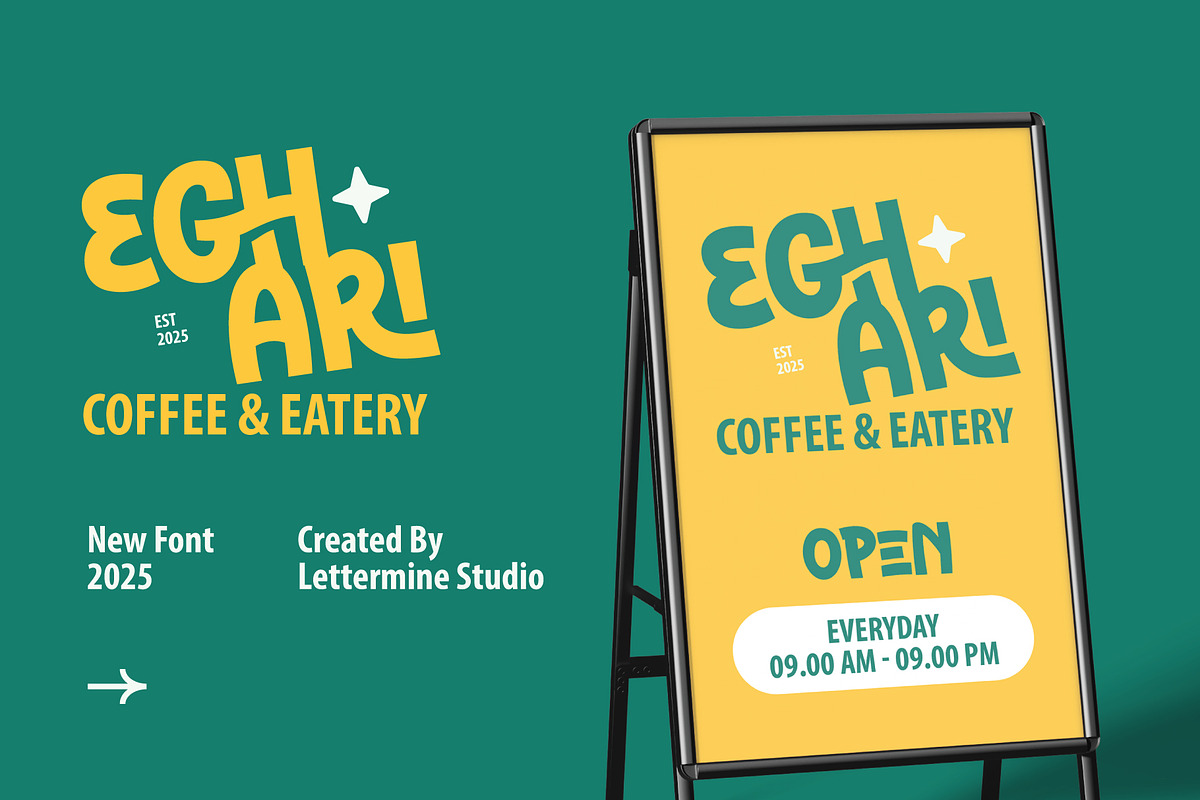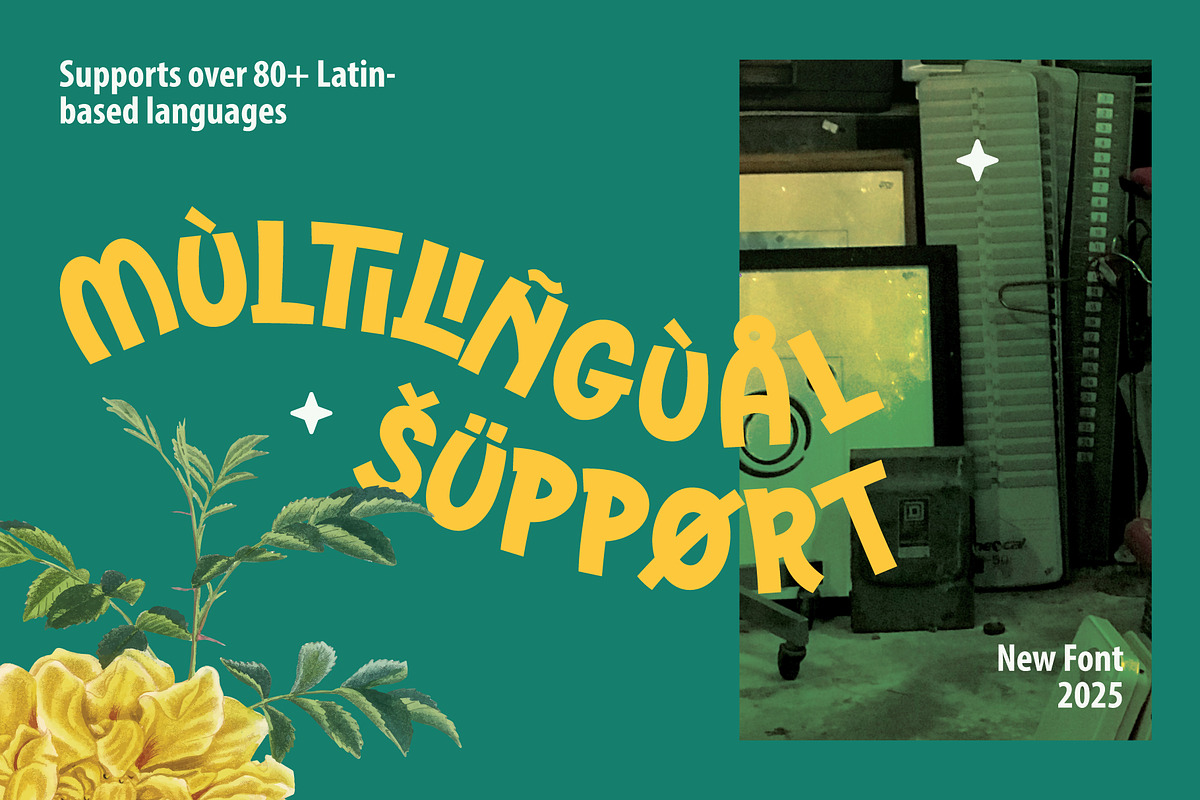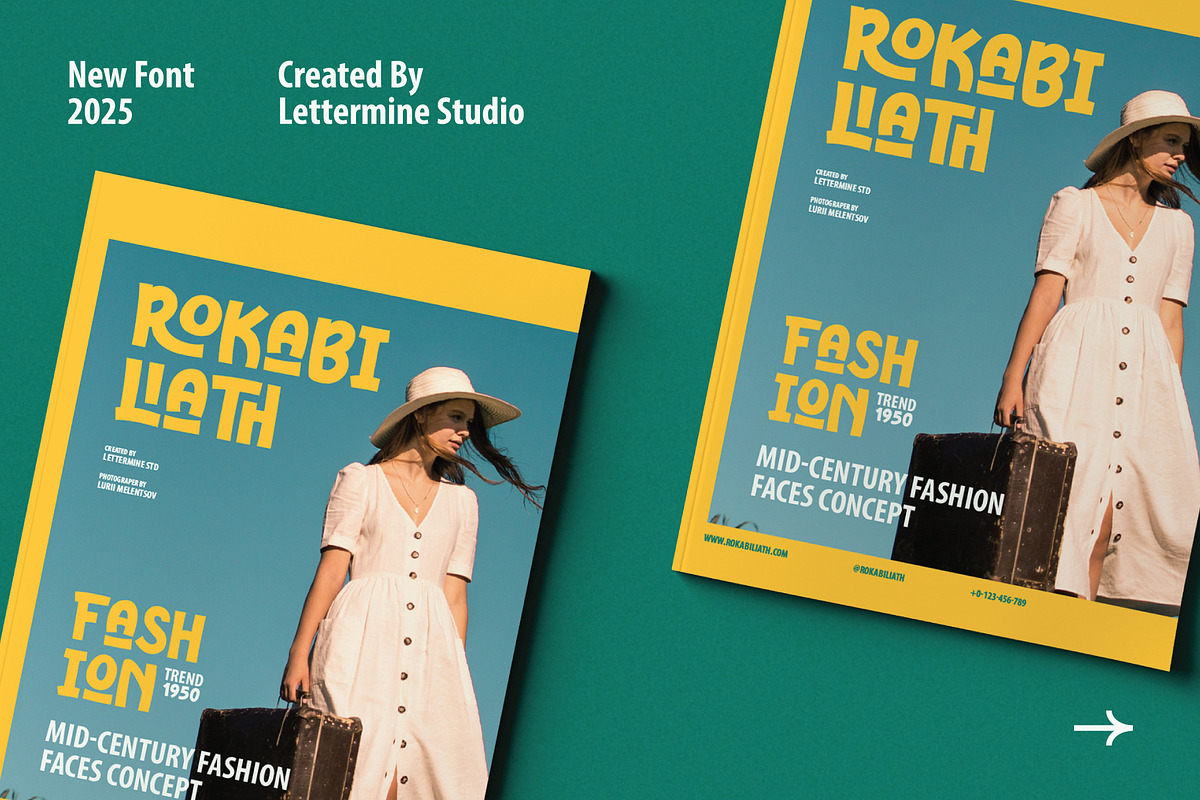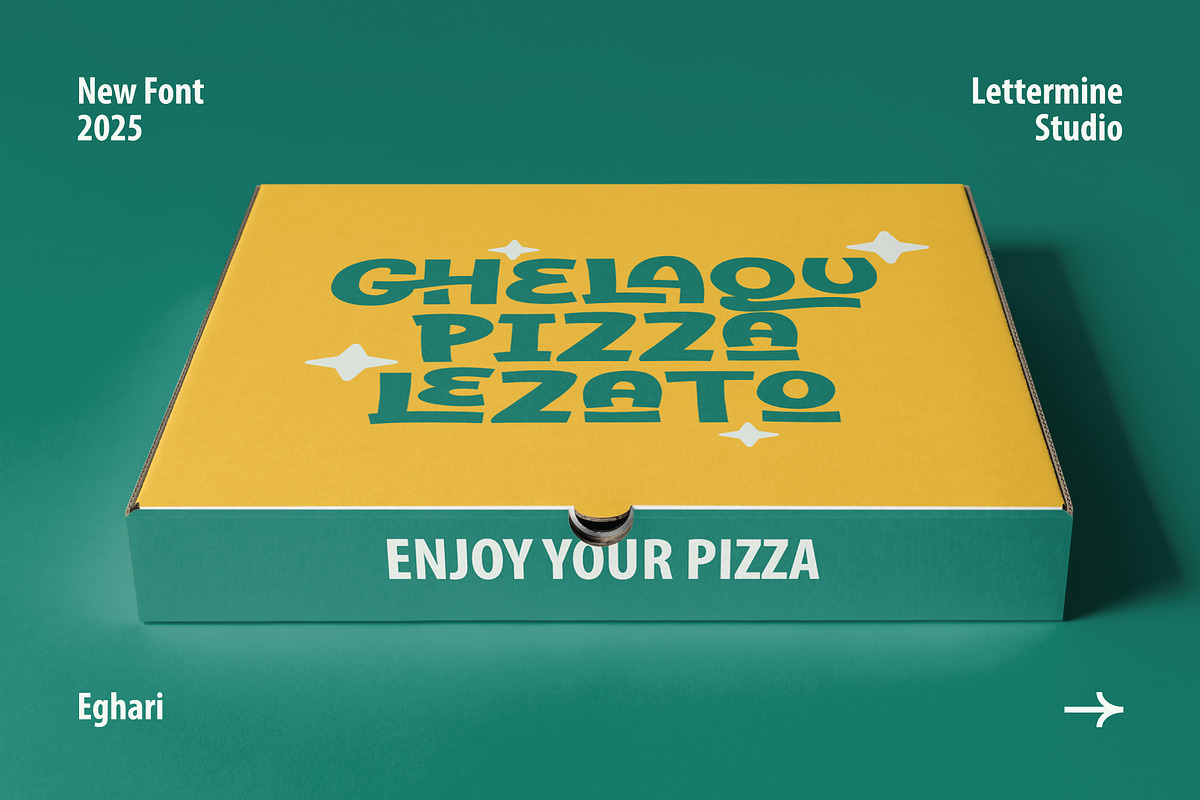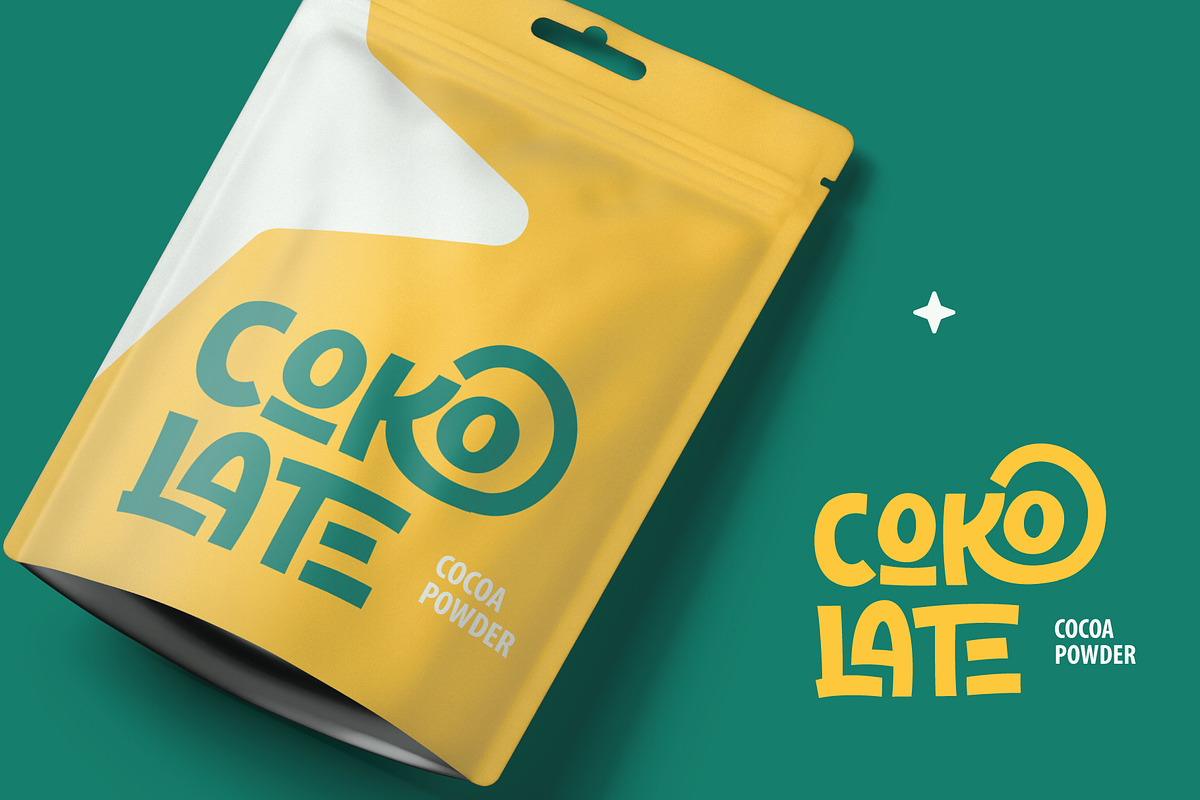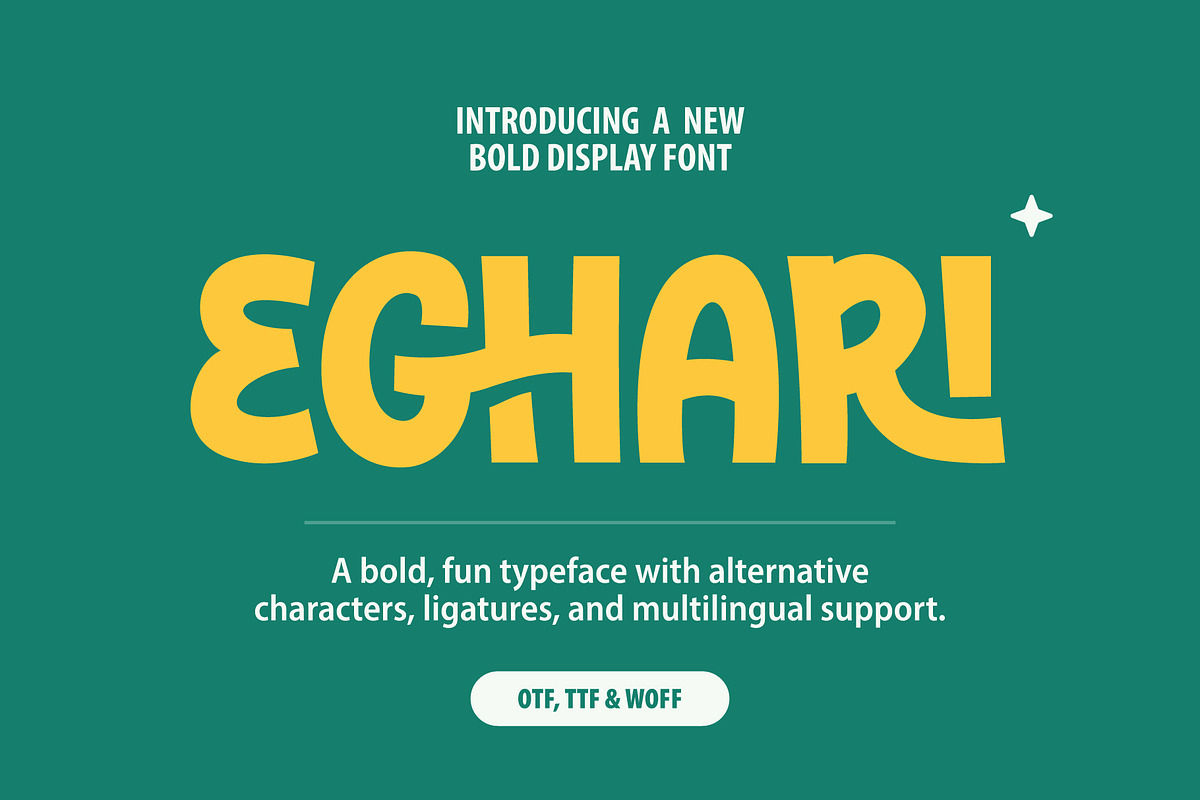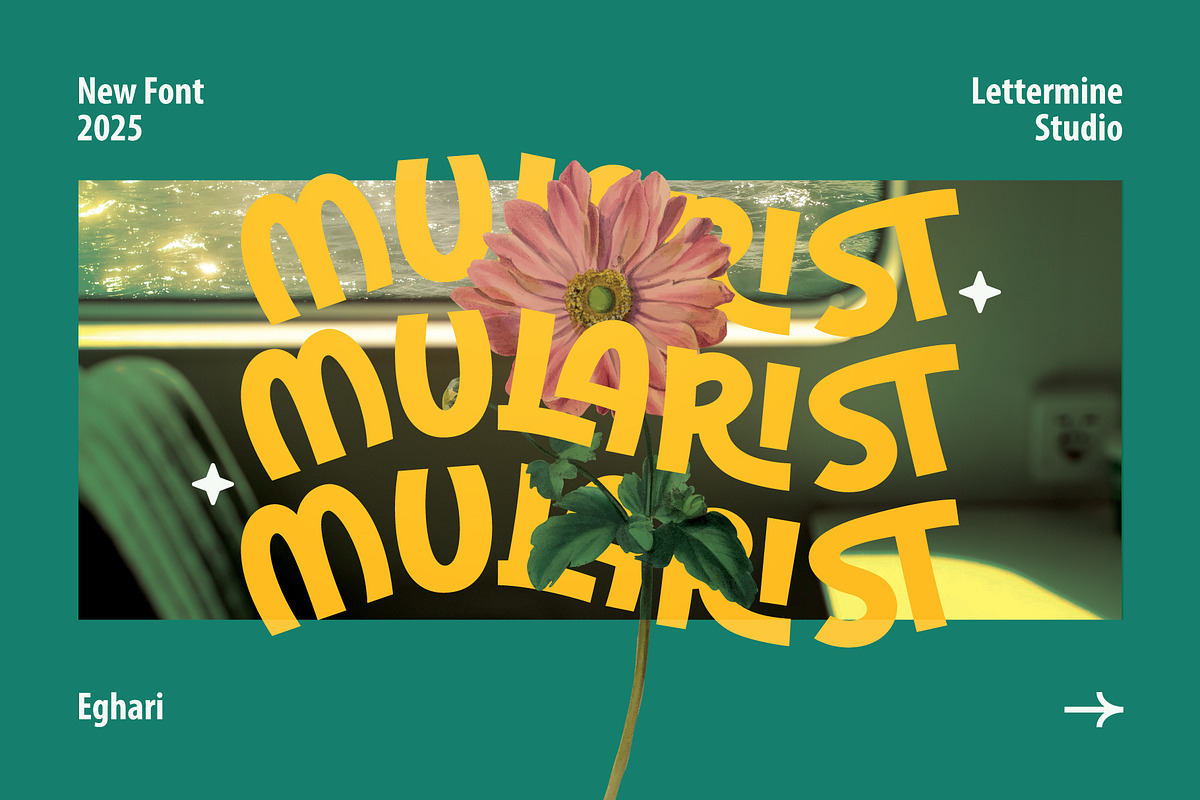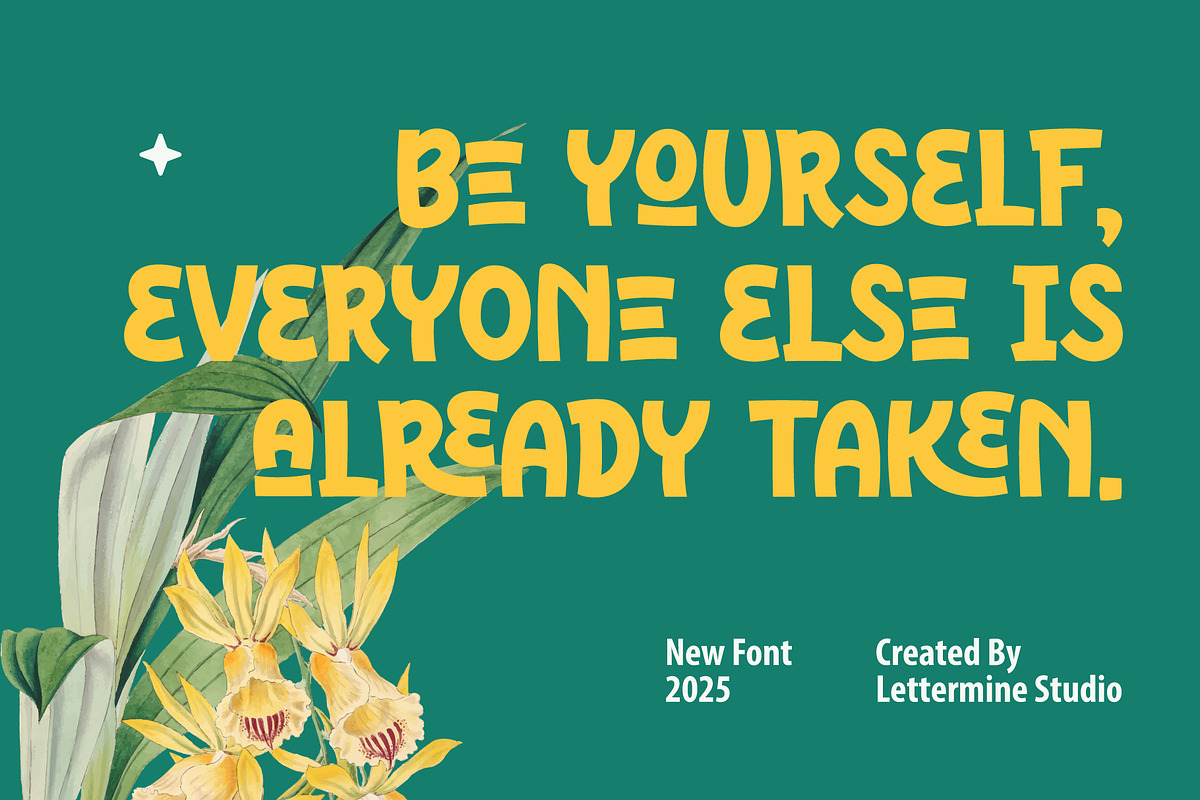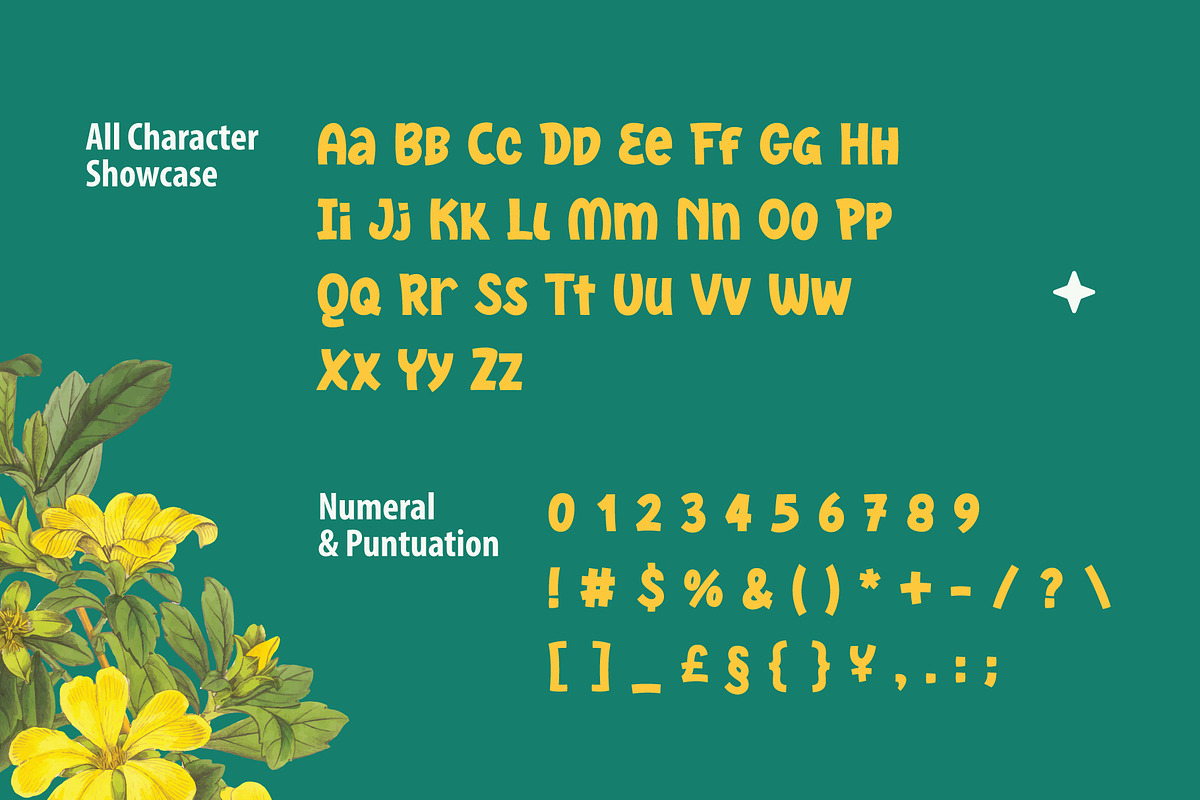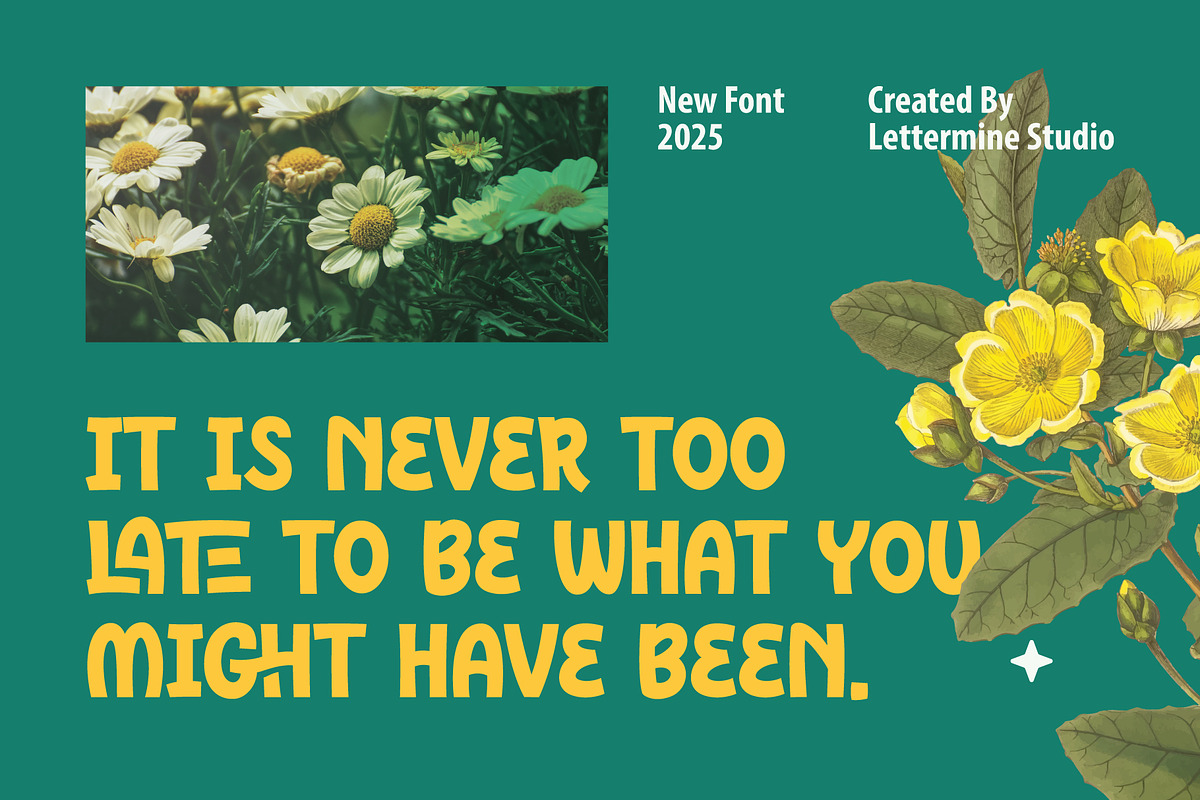
Eghari - Sans Serif
EGHARI – Playful Bold Display Font
EGHARI is a bold and energetic display font packed with fun and charm. With chunky curves and quirky letterforms, this typeface is made to grab attention and spark joy. It's perfect for digital packaging mockups, educational designs, playful branding, social media content, and cheerful promotional materials. Whether you're designing for a kids-themed project, creating eye-catching poster titles, or crafting bold graphic layouts EGHARI brings personality and creativity to every letter. It comes with fun alternates and ligatures, plus full multilingual support. And yes, it’s fully PUA encoded for easy access across all design software.
- Bold, rounded, and playful letterforms
- Fun ligatures & stylistic alternates
Make your designs shine with fun, bold energy — only with EGHARI